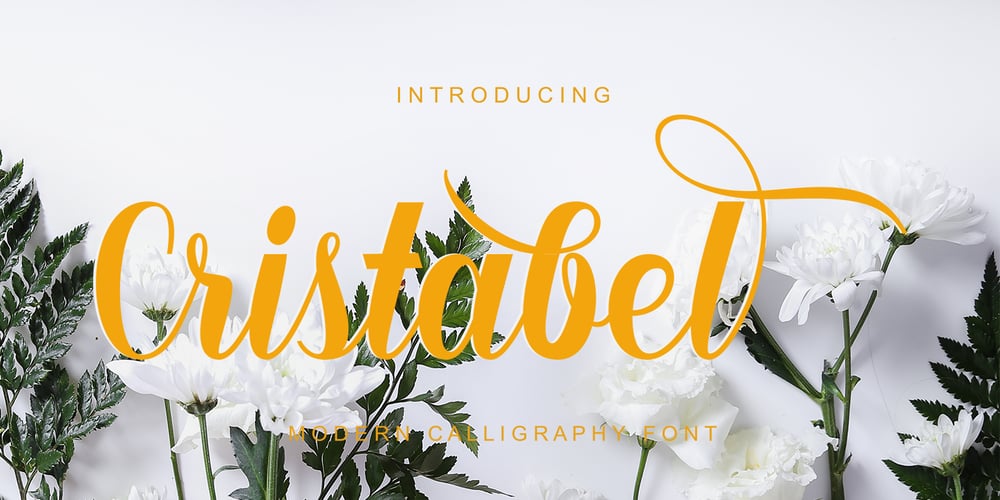
Cristabel Font Family was designed by khaidir and published by Gatype. Cristabel contains 1 styles and family package options. Cristabel Script is a modern calligraphy typeface, with casual and pretty with swashes. It can be used for many purposes such as titles, signatures, logos, wedding invitations, letterhead, signage, labels, newsletters, posters, badges and more.Cristabel Script features OpenType, including the initial and terminal letters, alternates, ligatures and International support for most Western languages included. To activate OpenType Stylistic alternative, you need a program that supports OpenType features such as Adobe Illustrator CS, Adobe Indesign and CorelDraw X6-X7, Microsoft Word 2010 or later.How to access all of the alternate characters, using the Windows Character Map to Photoshop:https://www.youtube.com/watch?v=Go9vacoYmBwCristabel Script is PUA encoded, which allows full access to all the extra characters without having to design special software. Mac users can use Font Book, and Windows users can use the Character Map to view and copy one additional character to paste into your text editor / favorite applications.